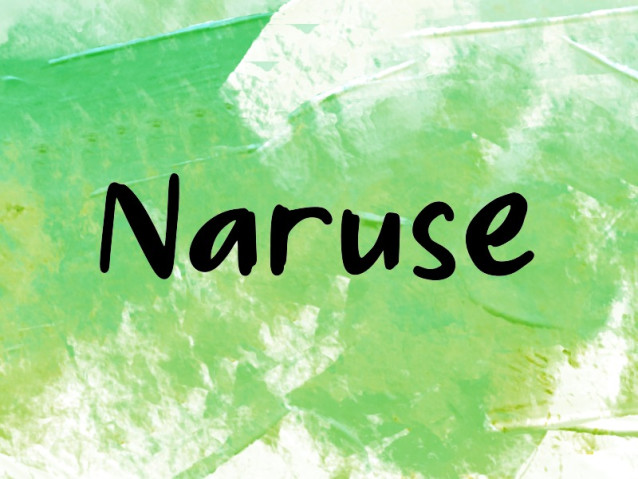
Naruse Font
Naruse Font is a casual handwritten font with a smooth, natural flow. Its friendly and organic style makes it perfect for posters, social media, branding, packaging, and creative designs that need a warm, personal touch.